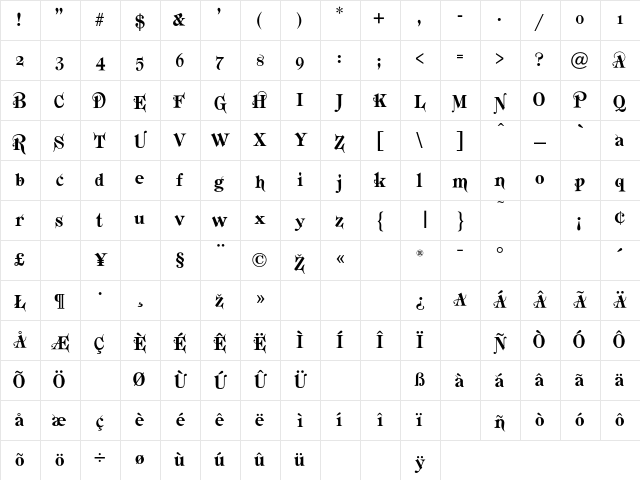
Katherine Regular Free Font
Katherine Regular
Foundry: Digitized by Dan X. Solo. Software Dover Publications, Inc
Design Context for Katherine
Katherine is a composed and adaptable typeface that performs quietly and consistently across a wide range of design contexts.